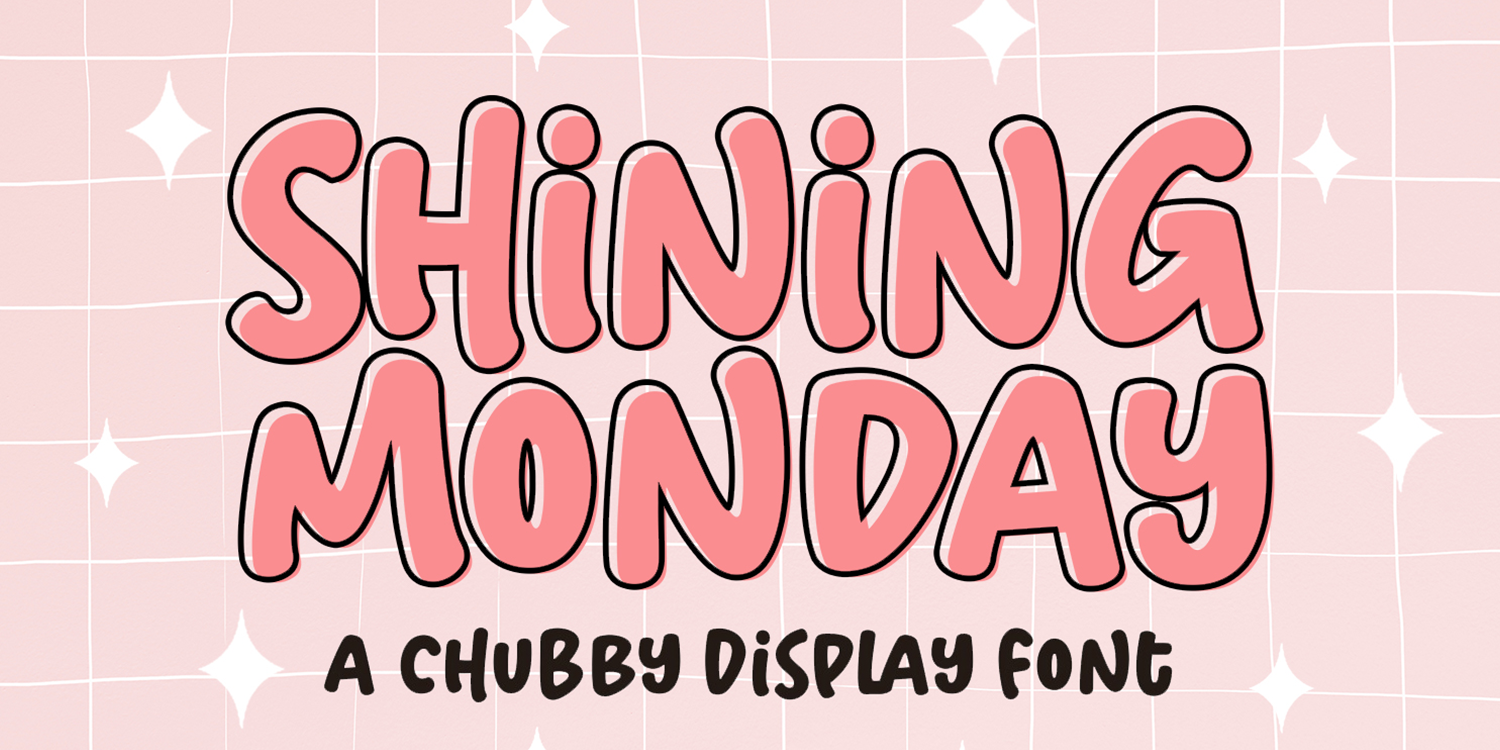
The Shining Monday Font is perfect for motivational poster designs, inspirational social media graphics, wellness brand communications, lifestyle blog headers, positive affirmation materials, personal development publications, morning routine planners, uplifting greeting cards, and optimistic marketing campaigns that require bright, energetic typography with motivational appeal.
What makes the Shining Monday Font so exciting is its radiant ability to capture the essence of fresh beginnings, positive energy, and the inspiring potential that comes with each new week and every opportunity for personal growth. This uplifting typeface embodies the spirit of optimism and forward momentum, featuring bright letterforms with dynamic character variations and energetic styling that creates an immediate sense of enthusiasm, possibility, and motivational encouragement. The font's positive energy and inspiring character make it the perfect choice for brands and projects that celebrate personal achievement, positive thinking, and the transformative power of maintaining an optimistic outlook on life's endless possibilities.
The Shining Monday Font family typically includes regular, light, and bold weights, along with motivational alternates and uplifting design elements that provide designers with comprehensive tools for creating inspiring branding systems and positive visual communications across various wellness applications.
Wellness brands and motivational speakers consistently choose Shining Monday Font Free Download for its exceptional ability to convey positive energy and inspirational authenticity. This energizing typeface represents the perfect fusion of motivational messaging and professional design quality, offering brands a powerful tool for building meaningful connections with audiences seeking personal growth, positive lifestyle changes, and daily inspiration. Whether you're developing branding for wellness coaches, creating motivational content for social media platforms, designing personal development materials, or crafting uplifting marketing campaigns, this font delivers the positive impact and inspirational credibility that motivational communications require.
The brilliantly crafted letterforms of the Shining Monday Font showcase dynamic proportions and energetic styling details that create a sense of forward movement and positive momentum while maintaining excellent readability across various inspirational applications. The font's bright character and optimistic appearance ensure that motivational messages feel genuine, encouraging, and aligned with positive lifestyle values that resonate with audiences seeking personal improvement.
Life coaches and wellness marketers appreciate the font's versatility in creating typography that feels both professionally credible and personally inspiring, effectively communicating expertise while maintaining the uplifting energy essential for building trust with communities focused on personal growth and positive transformation.
For organizations seeking to establish authentic connections with wellness-focused communities and communicate genuine encouragement through their visual identity, the Shining Monday Font provides an exceptional typography solution. Its motivational foundation and proven inspirational appeal make it particularly suitable for life coaches, wellness centers, personal development publishers, and lifestyle brands that prioritize positive impact and community empowerment.
The font's optimization for both traditional print motivational materials and digital wellness platforms ensures consistent positive impact across all inspirational communication channels, while its timeless optimistic aesthetic provides enduring value for wellness-focused brand systems requiring typography that authentically represents the enduring power of positive thinking and personal transformation in today's wellness-conscious society.